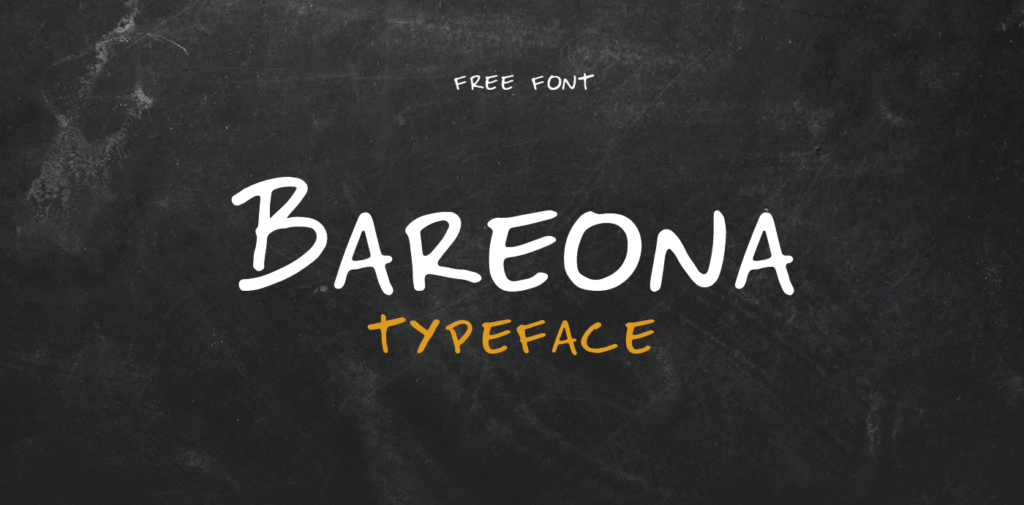
Bareona – designed and shared by Victor Zanin, a handwritten font inspired by vernacular typography used on the signs of Brazilian street bars and restaurants. This font includes uppercase, lowercase, numerals, symbols, and is multilingual.